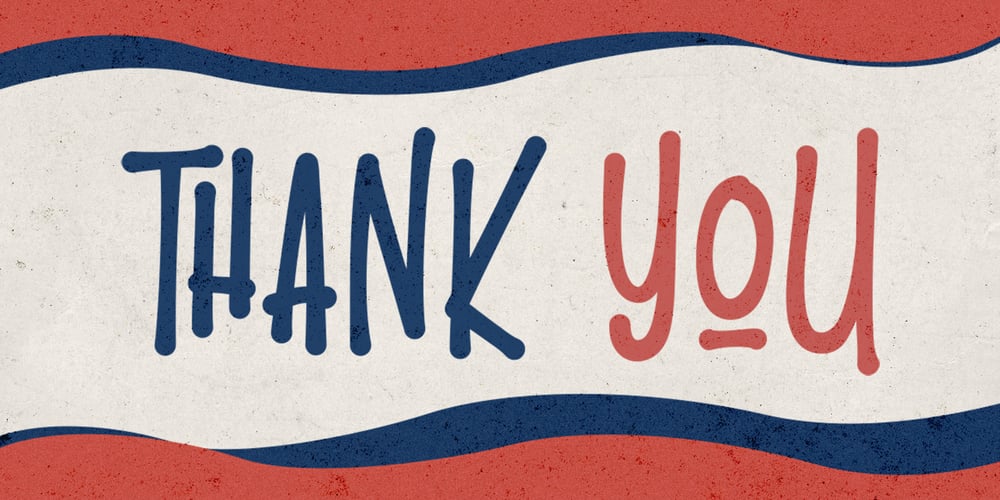
The Lamontrush Font Family was designed by Arif Dwi and published by Kotak Kuning Studio. The Lamontrush contains 1 styles and family package options. Introducing The Lamontrush, a playful and elegant classic typeface. It has a unique and different style and will give your design a classic touch. The Lamontrush is perfect for logos & branding, photography, watermark, social media posts, advertisements, invitation, product designs, label, stationery, wedding designs, product packaging, special events or anything that need handwriting taste. I highly recommend using a program that supports OpenType features and Glyphs panels such as Adobe Illustrator, Adobe Photoshop CC, Adobe InDesign, or CorelDraw, so you can see and access all Glyph variations. This font is encoded with Unicode PUA, which allows full access to all additional characters without having special design software. Mac users can use Font Book, and Windows users can use Character Map to view and copy one of the extra characters to paste into your favorite text editor/application. We hope you enjoy the font, please feel free to comment if you have any thoughts or feedback. Or simply send me a PM or email me at kotakkuningstudio@gmail.com. Thanks for purchasing and have fun!